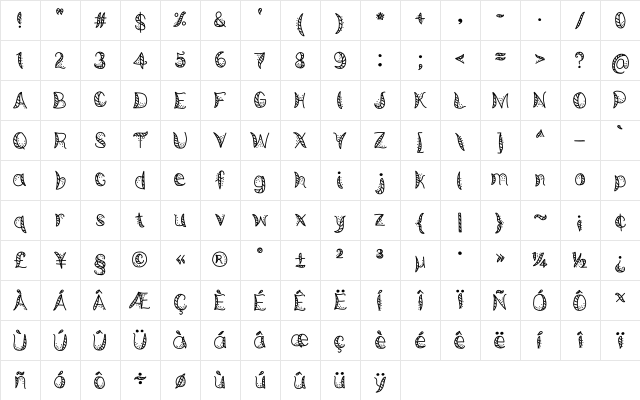
European Jazz American Music Medium Free Font
European Jazz American Music Medium
Complete European Jazz American Music Medium glyph index. Displaying only characters natively supported by European Jazz American Music Medium font.
Design Context for European Jazz American Music
European Jazz American Music is a composed and adaptable typeface that performs quietly and consistently across a wide range of design contexts.
Pro Tip: Use European Jazz American Music in both headline and body roles to test its range before committing to a single application.